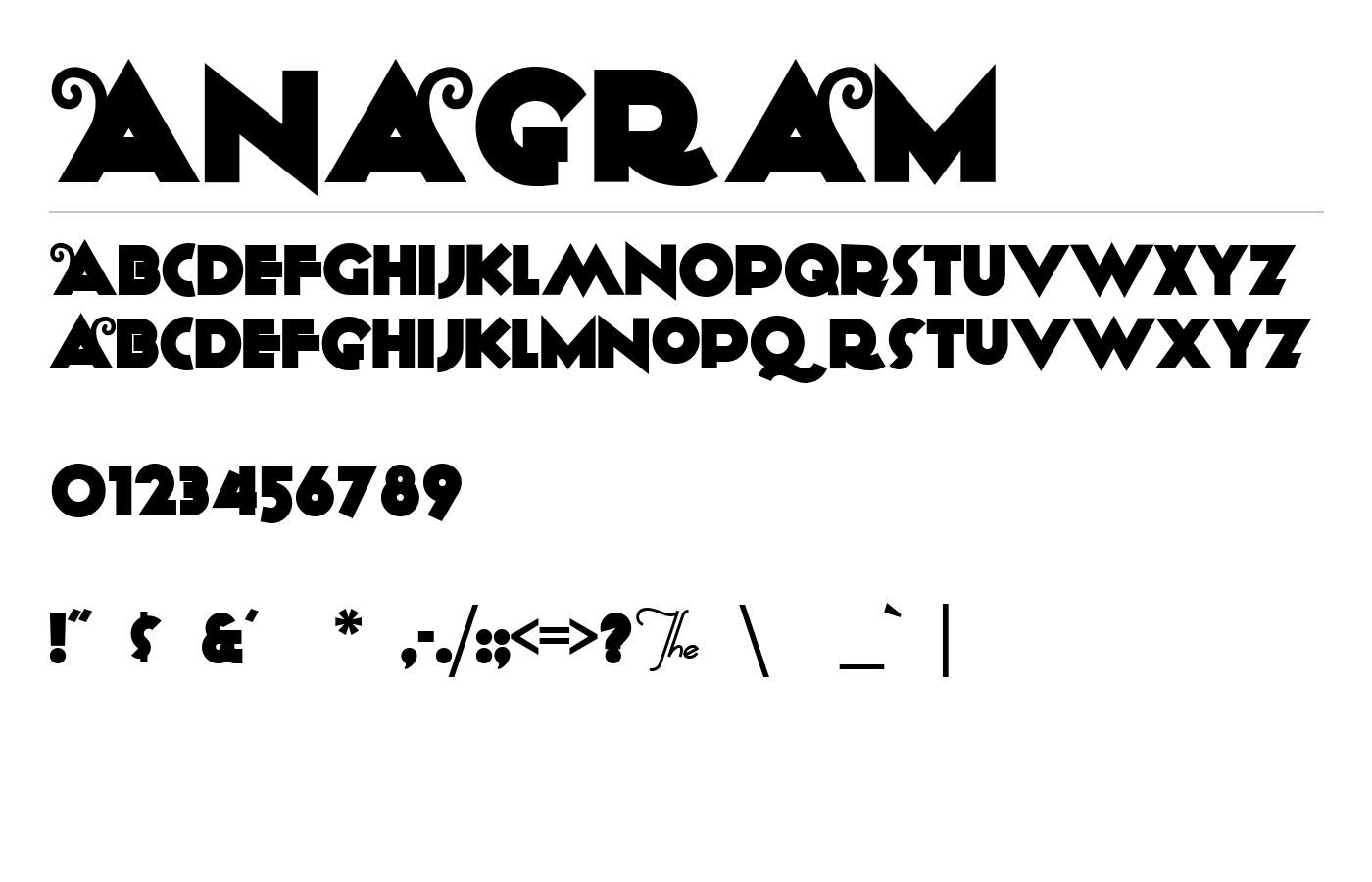
Anagram Font is a bold, geometric display typeface with strong, angular shapes and playful ornamental curls on select letters, creating a unique blend of modernity and vintage charm. Its heavy weight and compact structure make it ideal for eye-catching headlines and logos where a dramatic, artistic impression is desired. This font works best in creative branding, posters, or packaging that calls for a distinctive, bold personality with a touch of whimsy.
Anagram Font
About Anagram Font